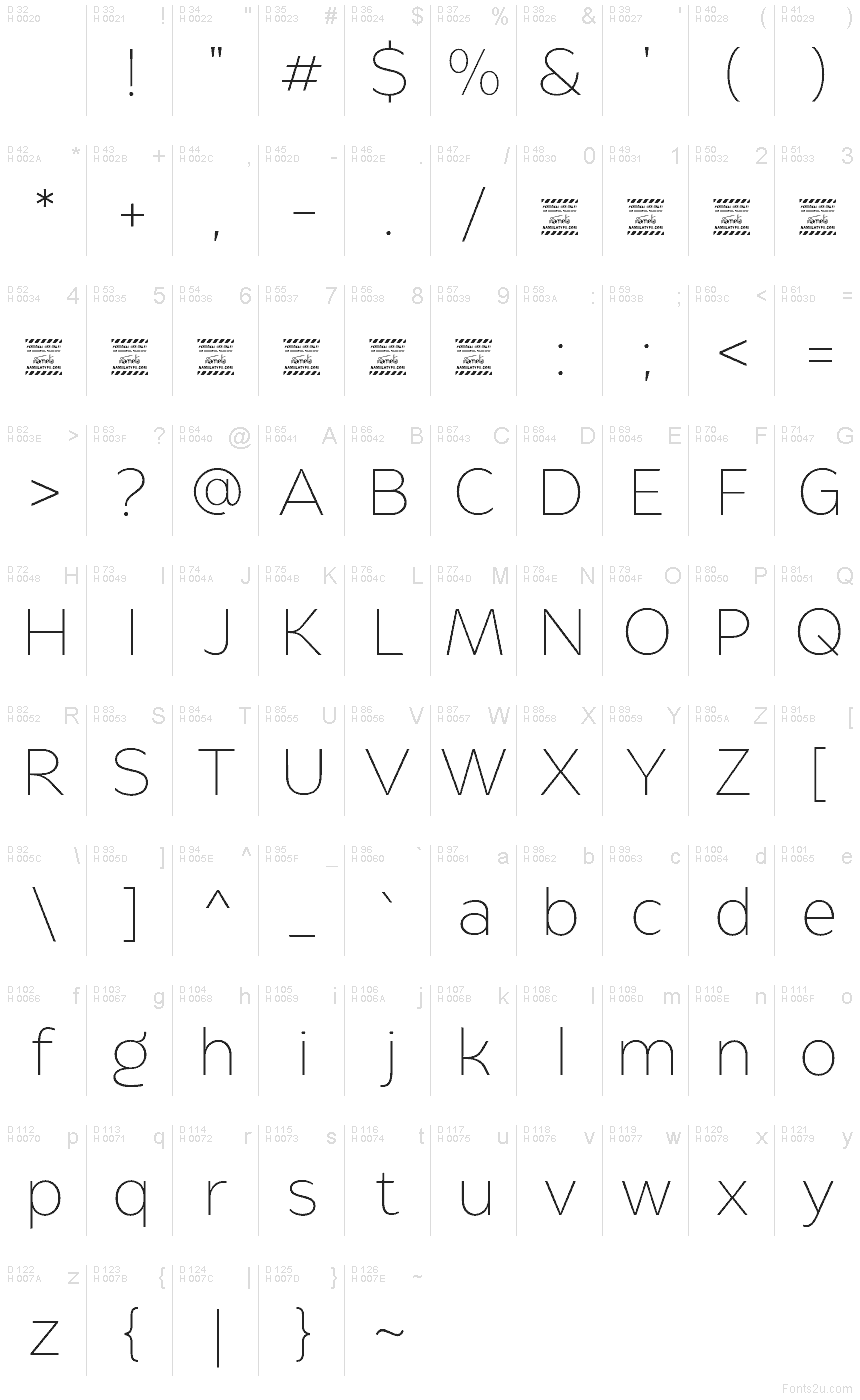
Gosent DEMO Thin
Gosent Thin font by Namela Type is a modern and minimalist sans-serif typeface marked by its clean and elegant character. This light font exemplifies simplicity, offering an unembellished yet sophisticated appearance that shines through in any design setting. Emphasize clarity and elegance in your projects with this subtle free sans-serif font.
Gosent Thin is extremely versatile, making it a splendid choice for branding, logos, business cards, product packaging, headers, posters design as well as small or large paragraph texts. Create beautiful book covers for fiction or non-fiction books, while also designing impactful website designs with this exquisite typeface.